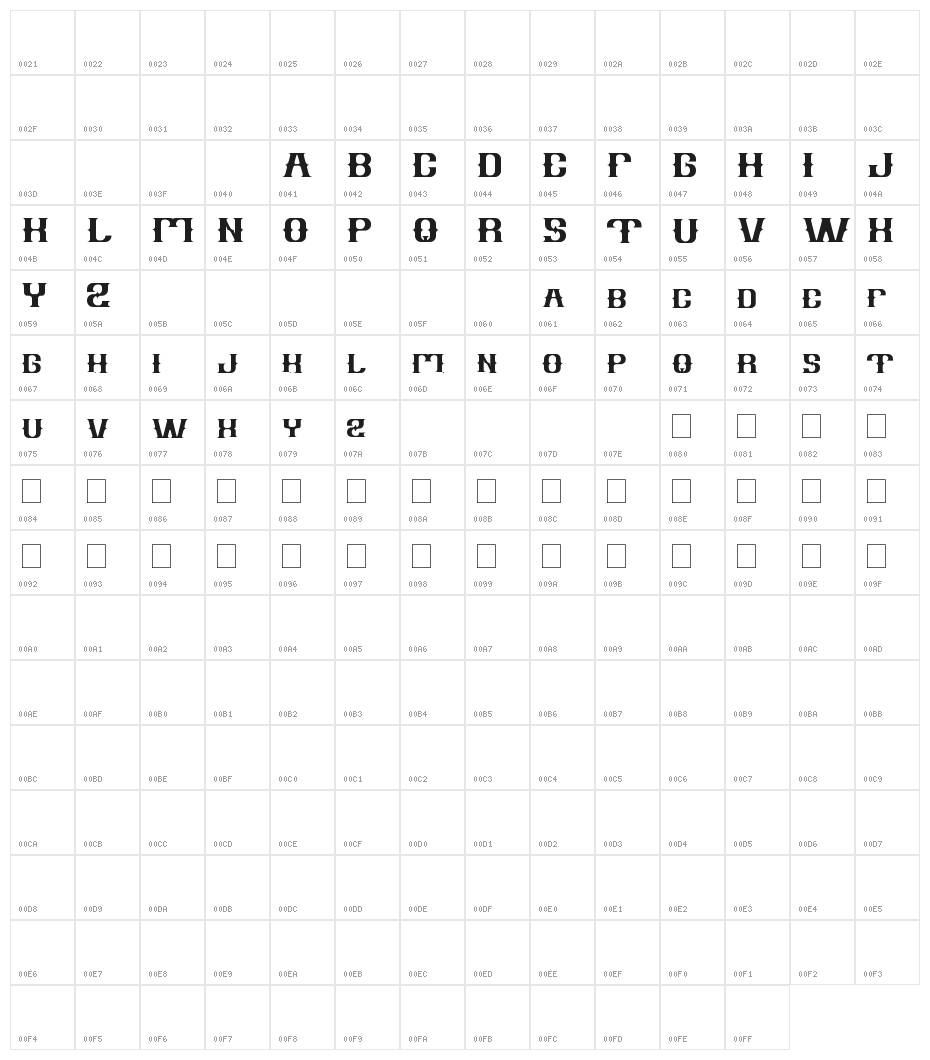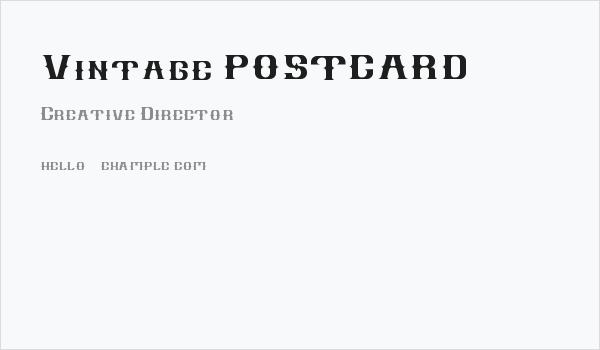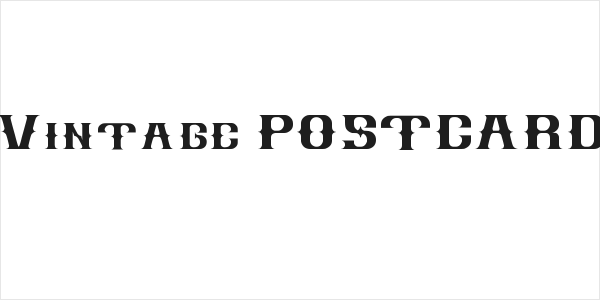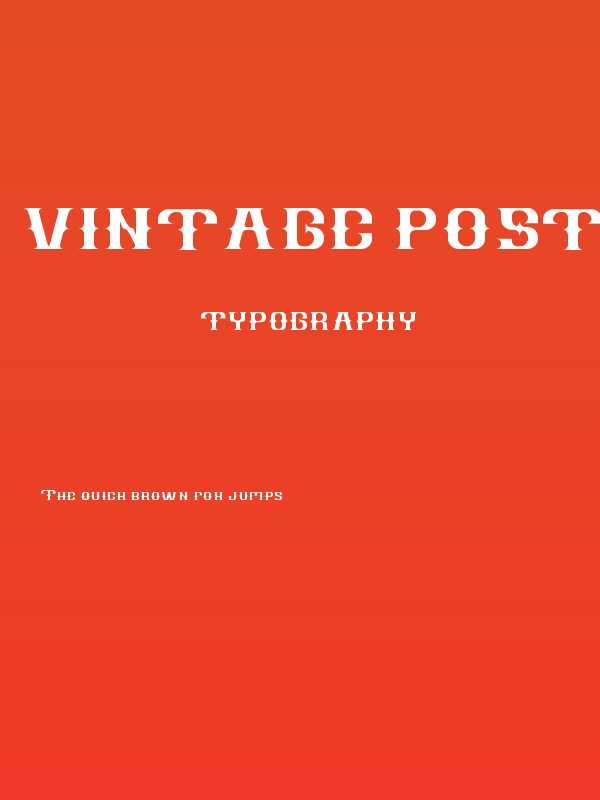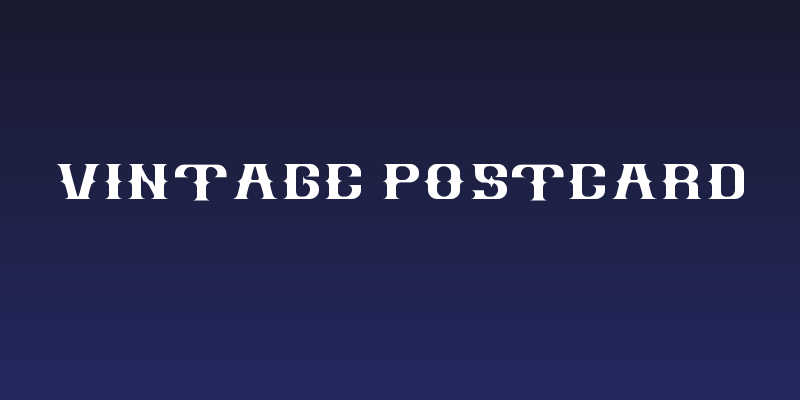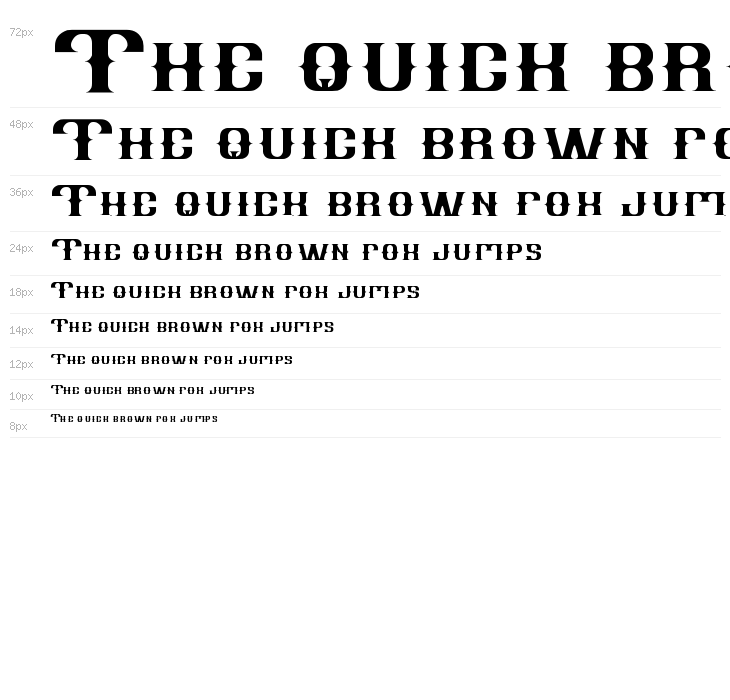
Vintage POSTCARD Font
Vintage POSTCARD Description
This font features a bold, decorative style with a vintage flair, reminiscent of old western signage and classic postcards. The characters are robust and display a unique blend of thick and thin strokes, creating a striking contrast that enhances readability while maintaining an ornamental appearance. The serifs are pronounced, adding to the font's distinctive character and charm. The uppercase letters are particularly eye-catching, with intricate detailing that suggests a handcrafted quality. This font is ideal for projects that require a touch of nostalgia or a retro aesthetic.
| Proposed Projects | Ideal for vintage-themed posters, retro branding, signage, and invitations. |